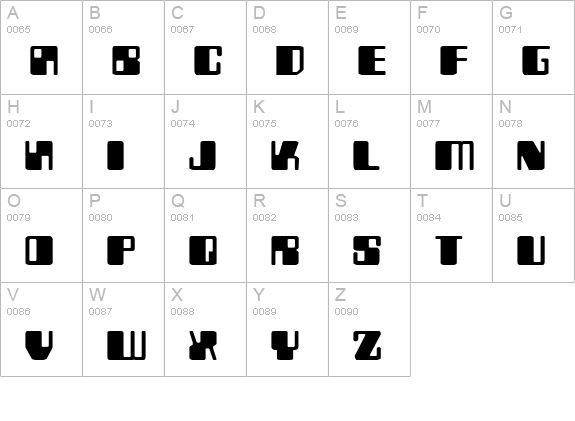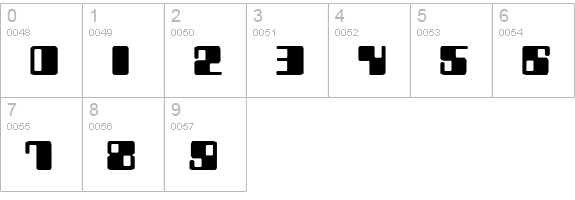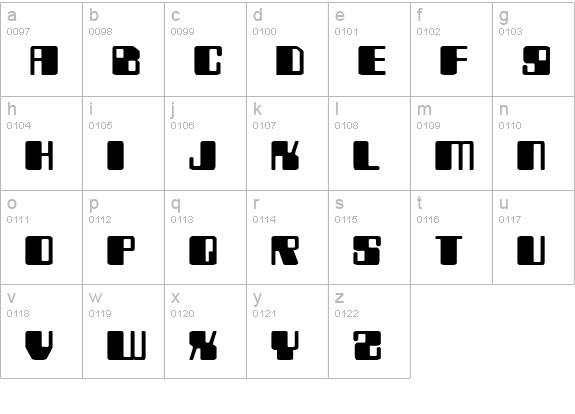
Zyborgs Expanded Font Details
Zyborgs Expanded is a distinctive, extended-width variant in the Zyborgs typeface family \xE2\x80\x94 well suited to design and typography projects.
Zyborgs Expanded font is a bold and futuristic typeface that exudes a sense of modernity and innovation. With its sleek lines and sharp edges, this font is perfect for projects that require a contemporary and cutting-edge look. The expanded version of Zyborgs adds an extra level of impact and style to your designs, making it stand out from the crowd. What's even better is that Zyborgs Expanded font is available for free download at FontsMarket.com. This means you can easily access this versatile and eye-catching font without any cost, allowing you to elevate your design projects without breaking the bank. Whether you're working on branding, advertising, web design, or any other creative project, Zyborgs Expanded font is sure to make a bold statement and leave a lasting impression. Download it now and take your designs to the next level!